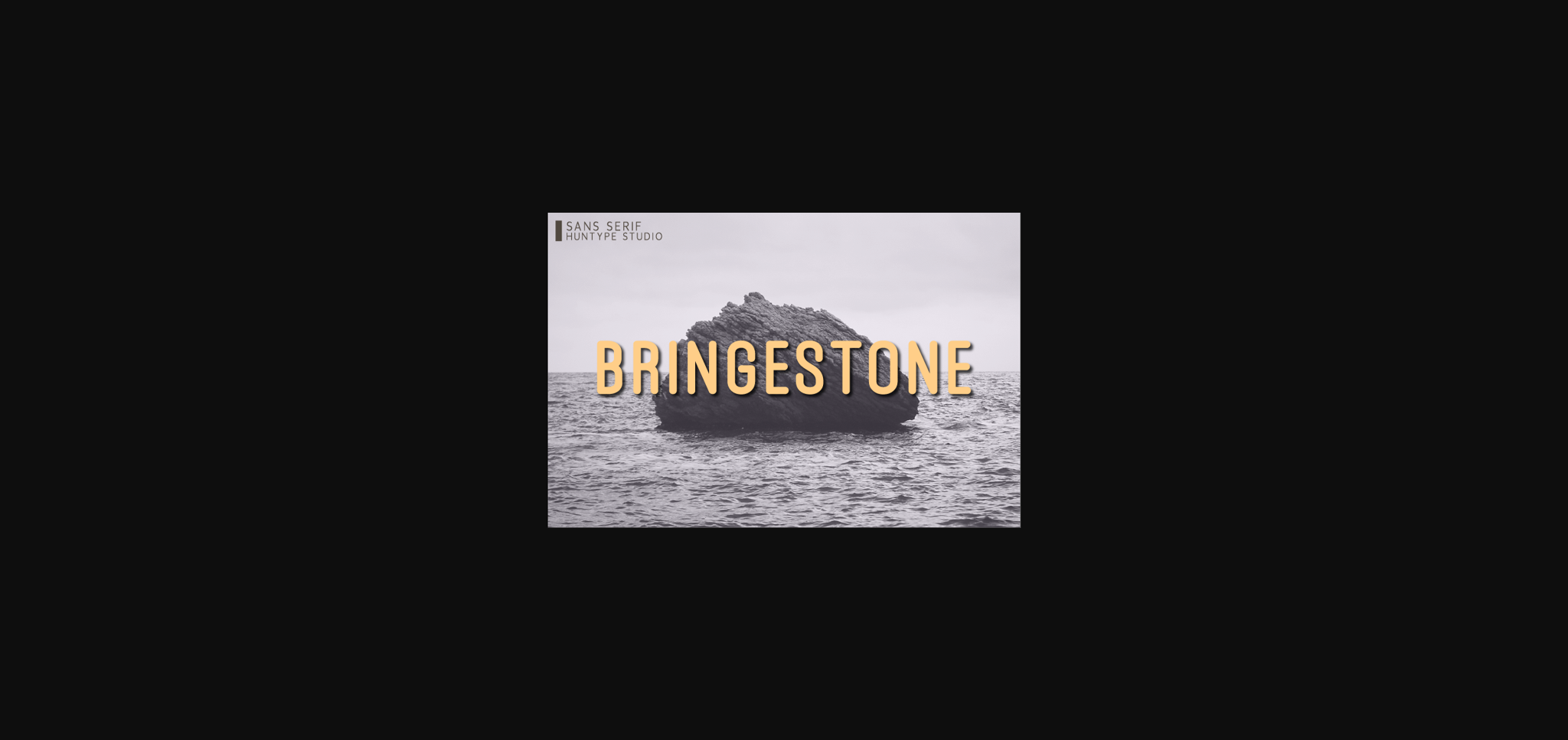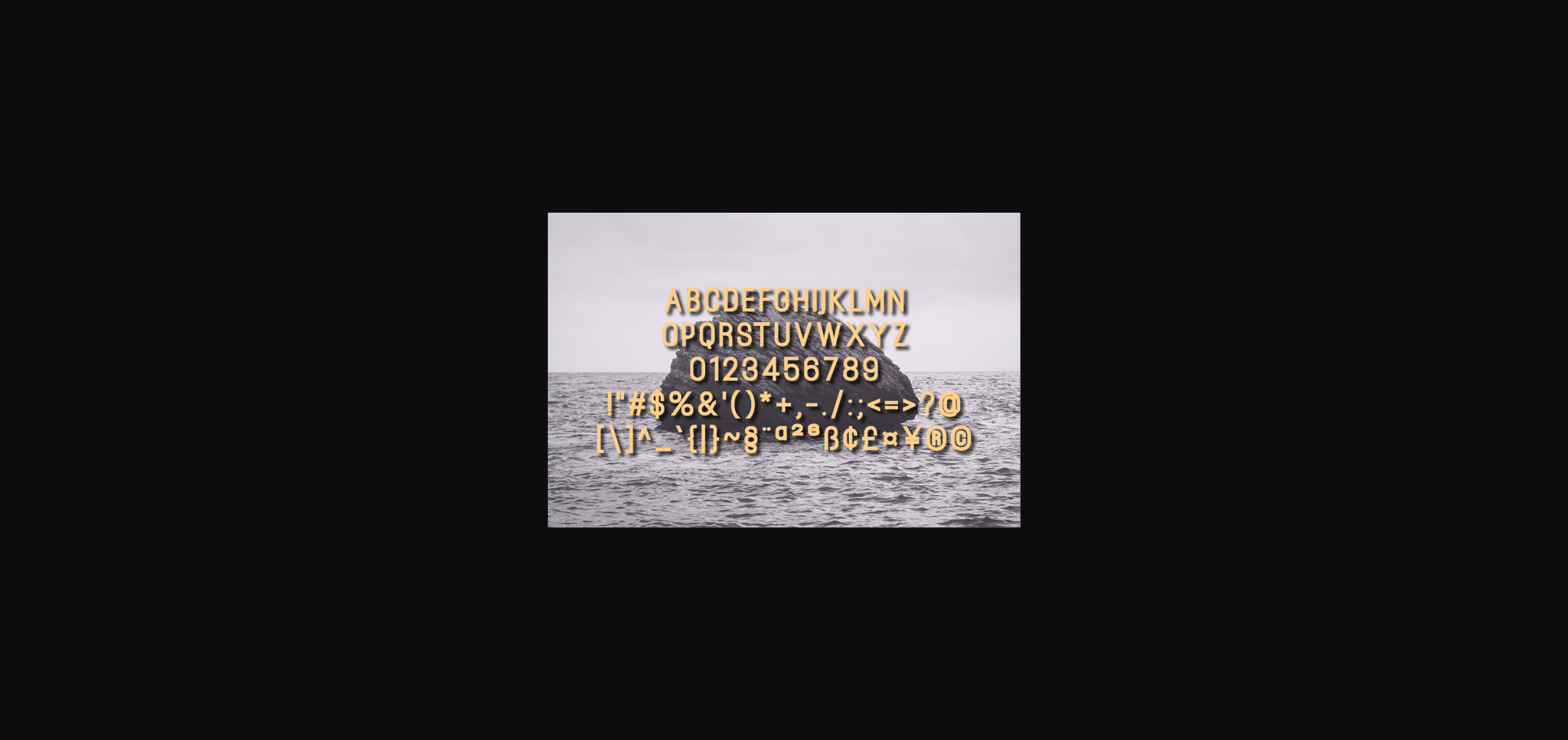
About Bringestone Font
Bringestone is a smooth sans serif font. It will complement any design need perfectly with its perfectly balanced mix of the smooth and sharp!